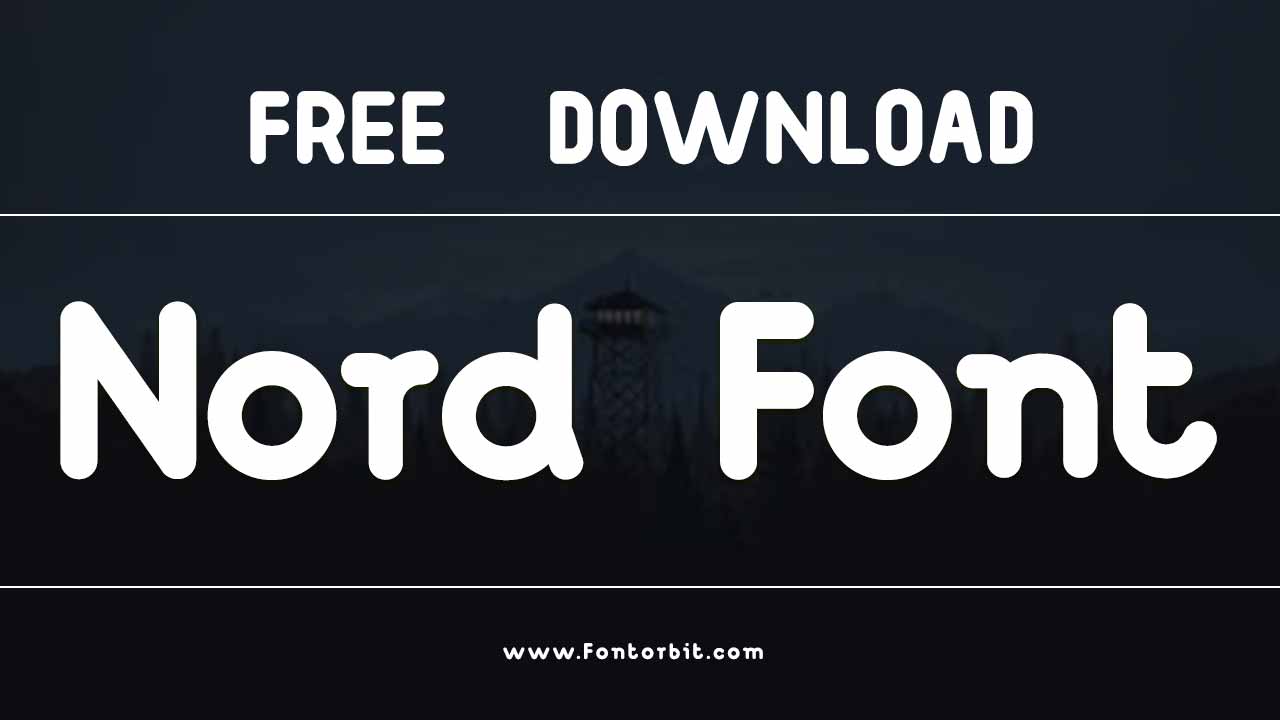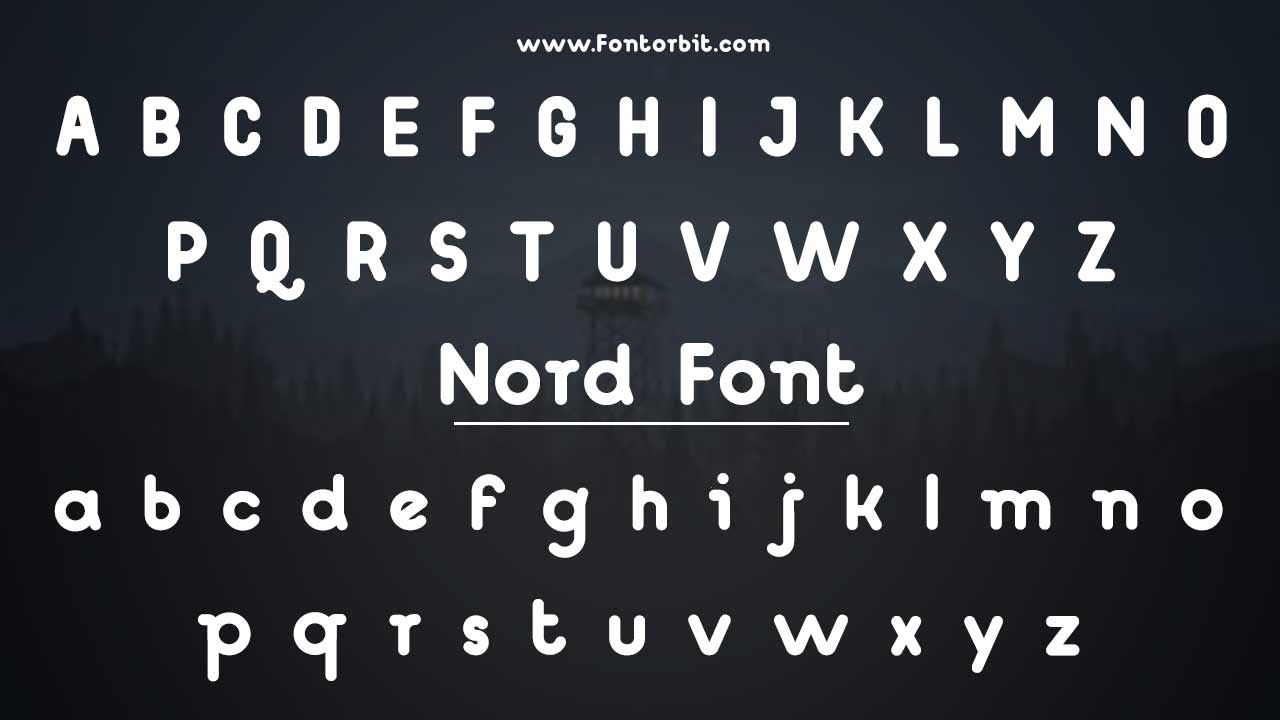
The Nord Font is a modern, sans-serif font that stands out for its minimal design and versatility. Introduction Designed by Vladimir Tomin, with 14 fonts, including italic versions and bold italic styles, this font family is perfect for logos, headlines, posters, and book covers. Whether used for logotypes, design projects, or website typography, Nord Font offers a wide range of possibilities.
Key Features Of Nord Font
- A Modern Sans Serif Font: Designed for clarity and readability.
- 14 Fonts Included: Each weight has an italic equivalent for added variety.
- Extended Language Support: Covers Western European, Central European, and South Eastern European languages.
- 276 Glyphs: Includes special characters for multilingual support.
- Ideal for Various Designs: Suitable for headlines, logos, book covers, and posters.
- Strong and Clean Aesthetic: Works well in both decorative fonts and minimalist projects.
- Perfect Font for Branding: Great for business identity, advertising, and web design.
Nord Font Styles & Weights
The Nord Font Family comes in 14 fonts, including seven upright styles and their italic equivalents:
- Nord Thin / Nord Thin Italic
- Nord Light / Nord Light Italic
- Nord Book / Nord Book Italic
- Nord Regular / Nord Italic
- Nord Medium / Nord Medium Italic
- Nord Bold / Nord Bold Italic
- Nord Black / Nord Black Italic
This variety makes Nord Font highly adaptable for different design projects and branding needs.
Design Principles Behind Nord Font
The Nord font is designed with a clean, modern, and geometric style. Its design principles focus on high legibility, balanced proportions, and simplicity. The font often incorporates straight lines and uniform spacing, giving it a minimalist and sleek look. These principles make modern branding, digital design, and readability across different platforms ideal.
Where To Use Nord Font?
Use In Typography Design
To use Nord font effectively in typography design, consider its clean and geometric nature. It works well for headlines, logos, posters, and web design. Pair it with complementary fonts for body text and ensure enough contrast for readability. The font’s modern look makes it great for minimalist and contemporary designs.
Similar Fonts To Nord Font
The Nord Font Family is a contemporary and adaptable typeface designed to suit a wide range of creative projects. Whether you’re crafting logos, designing website typography, creating impactful headlines, or developing branding materials, this font provides a strong, sleek, and polished aesthetic that stands out.
6.What Makes Nord Font A Perfect Font For Designers?
Nord Font features a minimalist, modern design. It works across a variety of projects. Its clean lines and balanced proportions ensure high legibility. The font’s versatility suits branding, logos, and website typography. With an extended character set and a timeless look, it remains a top choice for designers who want sleek, polished designs.